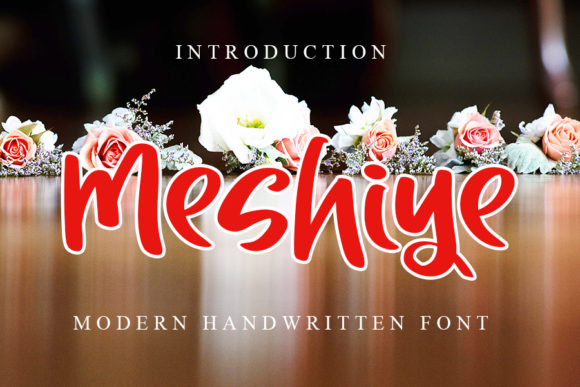
Behold Meshiye Font, a Stunning Creation by NYA Letter: The Perfect Playful Font for Your Designs
In the realm of captivating display fonts, Meshiye stands tall as a beacon of playfulness and authenticity. Conjuring a sense of nostalgia and childlike wonder, Meshiye is the perfect font to infuse life into your creative projects.
With its hand-drawn charm and whimsical strokes, Meshiye sparks a connection with audiences, evoking a sense of warmth and familiarity. Its playful nature makes it an ideal choice for children's activities and school projects, where it adds a touch of magic to presentations, posters, and worksheets.
Meshiye's versatility extends beyond educational settings. Its friendly and inviting character makes it a perfect fit for branding and marketing materials. Whether you're creating logos, flyers, or social media posts, Meshiye's playful personality will captivate your audience, leaving a lasting impression that sets you apart from the competition.
As a modern and relaxed display font, Meshiye brings a touch of sophistication to your designs without sacrificing its playful spirit. Its distinct letterforms and carefully crafted curves add a touch of elegance to your creations, making them stand out from the ordinary.
With Meshiye, you'll discover a font that not only enhances your designs but also resonates with your audience on a deeper level. Its playful and authentic nature creates a connection that fosters engagement and leaves a lasting impression.